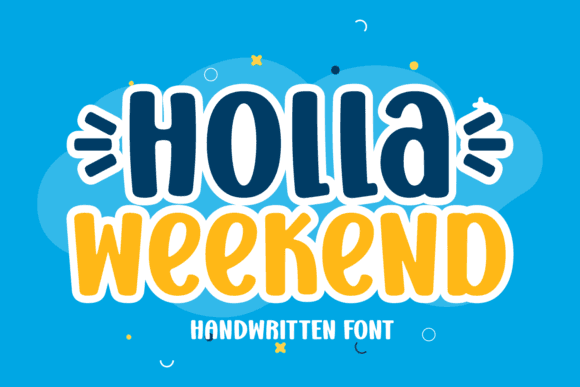
Holla Weekend Font for Cricut, Silhouette and Printable Designs
Holla Weekend is a thick‑lettered, friendly display font that brings a fun, upbeat vibe to any design. With its bold, chunky characters and cheerful style, it's perfect for designs that want to stand out and feel playful — from children’s projects to casual branding and seasonal crafts. Whether you're creating T‑shirts, posters, greeting cards, or digital graphics, this font adds personality and warmth to your work.
- Playful children’s T‑shirts and apparel
- Birthday invitations, greeting cards, and posters
- Social‑media graphics for events or promotions
- Merchandise designs (mugs, tote bags, prints)
- Branding or logo concepts for casual and fun‑loving brands
- Bold, readable style — perfect for display text, headlines, logos, and merchandise
- Friendly, playful vibe — ideal for kids’ products, invitations, casual branding
- Versatile across different media: print, digital, apparel, social media
- Ready for cutting machines — great for Cricut, Silhouette, or other craft tools
Q: What projects are best suited for this font?
A: This font shines in casual, fun, and playful projects: kids’ items, greeting cards, posters, event invites, social media banners, and lifestyle‑brand merch.
| Feature | Holla Weekend | Generic A | Generic B |
| Font Style | Bold, thick display font with playful personality | Standard sans‑serif (e.g. Arial) | Light script font |
| Best For | Headings, posters, merch, kids & casual designs | Body text, readable paragraphs | Elegant invites, decorative accents |
| Visual Impact | High — bold, eye‑catching | Low — plain & utilitarian | Medium — decorative but subtle |